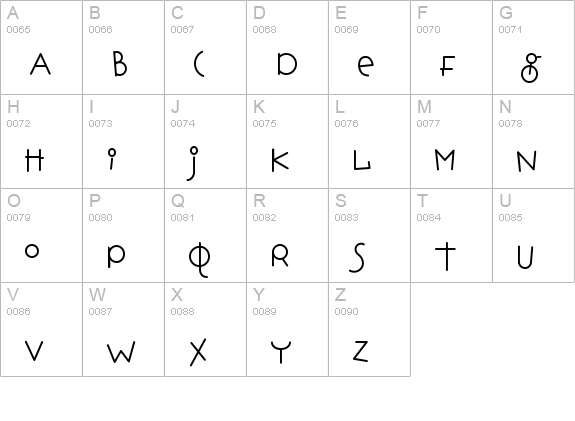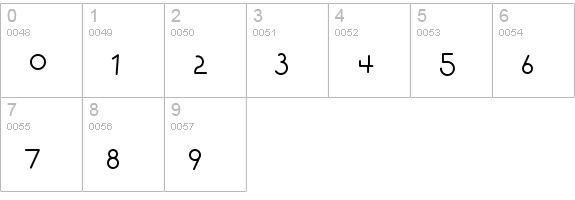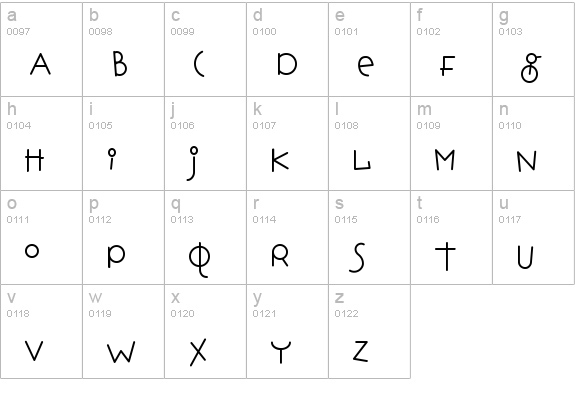
HopscotchPlain Font Details
HopscotchPlain font is a whimsical and playful typeface that exudes a sense of fun and joy. Perfect for creating eye-catching designs, this font features clean lines and a modern style that will add a touch of charm to any project. Whether you're designing invitations, posters, or branding materials, HopscotchPlain font is sure to make a statement. Best of all, this font is free to download at FontsMarket.com. You can easily access this delightful typeface and incorporate it into your creative projects without any cost. So why wait? Download HopscotchPlain font today and let your imagination run wild with its cheerful and inviting aesthetic.